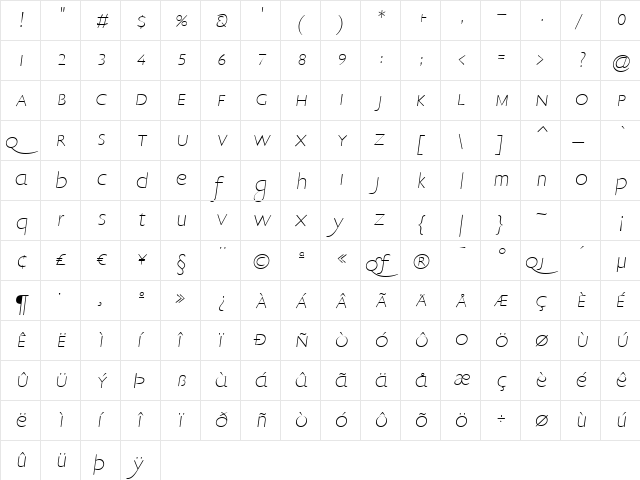
EricSans Italic Font Preview
EricSans Italic
Design Context for EricSans Typeface
EricSans is a composed and adaptable typeface that performs quietly and consistently across a wide range of design contexts. The dynamic lean of this cut emphasises speed and emphasis in any layout.